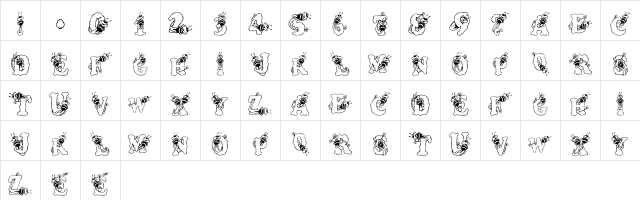
AlphaBizzyBee Regular
Design Context for AlphaBizzyBee
AlphaBizzyBee is a composed and adaptable typeface that performs quietly and consistently across a wide range of design contexts.